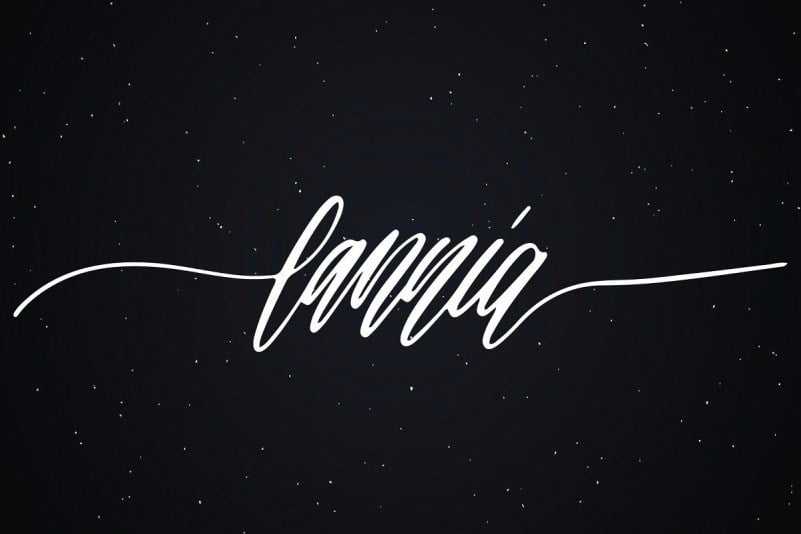
Lannia Font
Introducing Lannia Font, a beautiful flowing font with gorgeous features.
Lannia Font includes alternates, ligatures, and left & right swash options, making it a truly powerful, robust font. Overall, Lannia is feminine, flowy, with just a touch of effortlessness.
Lannia could be used for feminine designs like woman-owned or woman-centric brands, wedding invitations, or projects requiring a handwritten element.